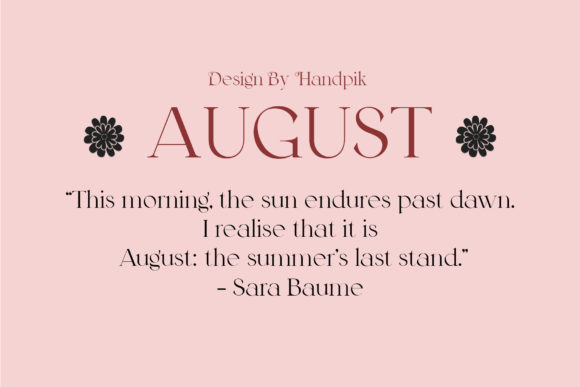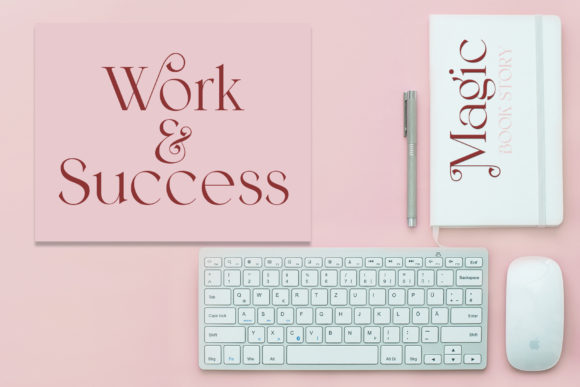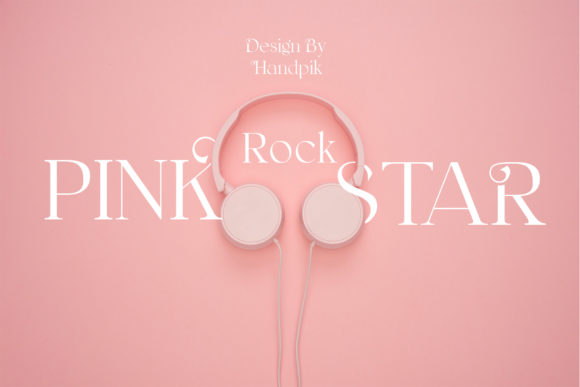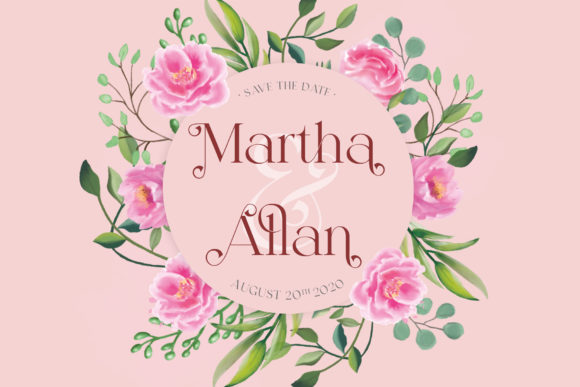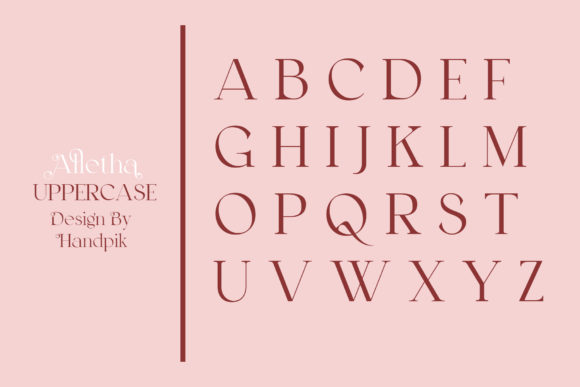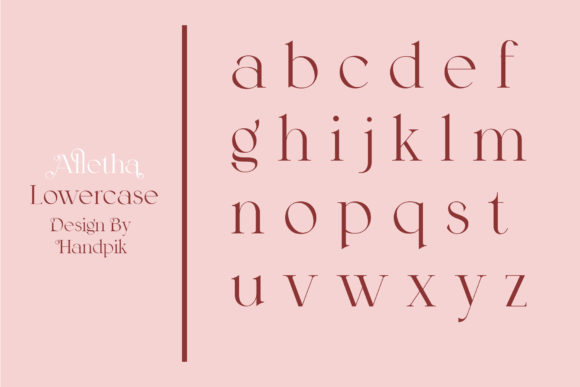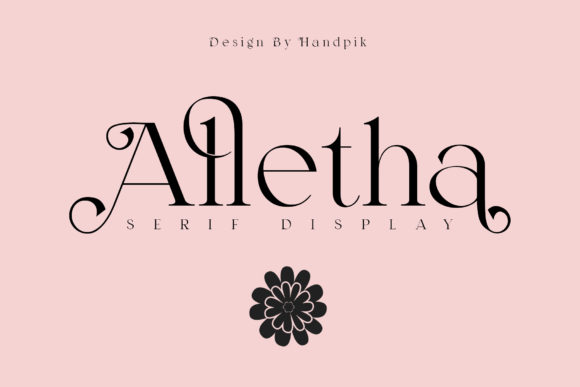
Introducing Alletha Font: Elevate Your Designs with Modern Elegance
In the world of typography, fonts play a crucial role in conveying messages, evoking emotions, and creating visual identities. For designers and crafters seeking a modern yet sophisticated look, Alletha Font is an excellent choice. This stunning modern serif font is perfect for a wide range of design projects, from invitation cards and decorations to clothing products and greeting cards. In this article, we’ll dive into the unique features of Alletha Font and explore how it can inspire your next design creation.
What is Alletha Font?
Alletha Font is a contemporary serif font designed to bring a touch of elegance and sophistication to your designs. Its modern aesthetic makes it an ideal choice for those looking to create visually appealing and distinctive content. Whether you’re working on a wedding invitation, a product label, or a social media graphic, Alletha Font is sure to make your design stand out.
Key Features of Alletha Font
- Modern Serif Design: Alletha Font boasts a sleek and modern serif design that adds a touch of refinement to any project.
- Versatility: This font is incredibly versatile, making it suitable for a wide range of applications, from digital designs to print materials.
- Unique Look: The distinctive style of Alletha Font ensures that your designs will have a unique and memorable appearance.
- Elegant and Sophisticated: The font’s elegant and sophisticated look makes it perfect for designs that require a high level of refinement.
Alletha Font’s versatility is one of its most significant advantages. Here are some design projects where this font truly shines:
- Invitation Cards: Create beautiful and elegant wedding invitations, birthday cards, or any other type of invitation with Alletha Font.
- Decorations: Use Alletha Font to add a touch of sophistication to your home decor designs, such as wall art, signs, or printable quotes.
- Clothing Products: Design stunning apparel, including t-shirts, hoodies, or tote bags, with Alletha Font’s modern and stylish look.
- Greeting Cards: Create heartfelt and visually appealing greeting cards for various occasions, such as holidays, birthdays, or thank-you notes.
Tips for Using Alletha Font
To get the most out of Alletha Font, consider the following tips:
- Pair with Complementary Fonts: Combine Alletha Font with complementary fonts to create visual interest and hierarchy in your designs.
- Experiment with Colors: Alletha Font looks great in various colors, so don’t be afraid to experiment and find the perfect hue for your design.
- Play with Sizes: Use different font sizes to create visual emphasis and add depth to your designs.
Get Inspired by Alletha Font
Alletha Font is more than just a font – it’s a design inspiration. Its unique look and modern elegance can spark creativity and help you create outstanding designs. Whether you’re a professional designer or a crafty DIY enthusiast, Alletha Font is an excellent addition to your design toolkit.
In conclusion, Alletha Font is a versatile and stylish modern serif font that’s perfect for a wide range of design projects. Its unique look, elegance, and sophistication make it an excellent choice for designers and crafters seeking to create visually appealing and distinctive content. Get inspired by Alletha Font and elevate your designs to the next level.